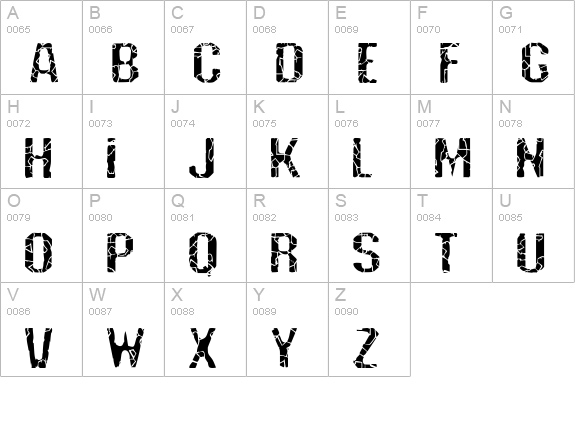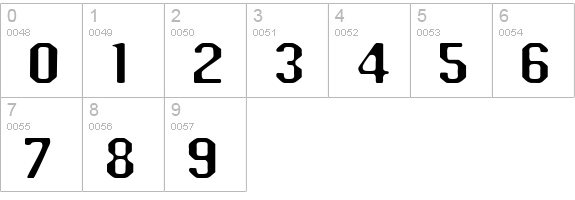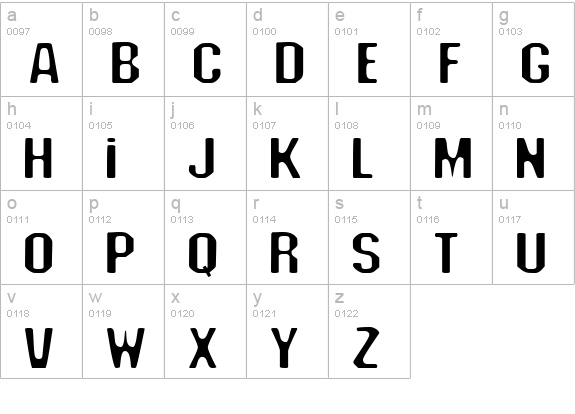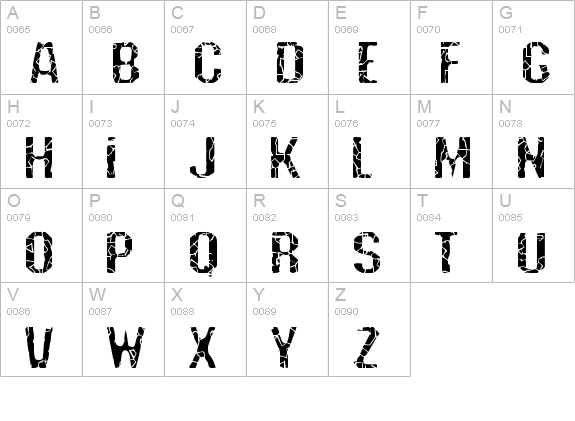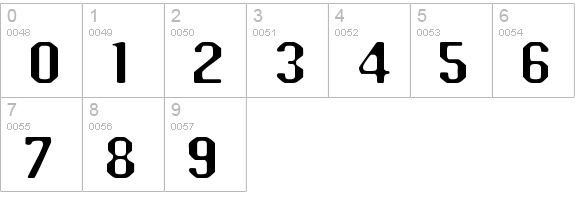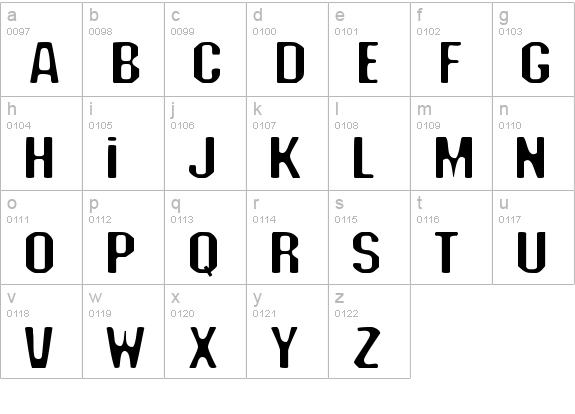
DEADLINE Font Details
DEADLINE font is a modern and stylish typeface that exudes a sense of urgency and importance. With its bold and impactful letterforms, this font is perfect for grabbing attention and making a statement in your designs. What sets DEADLINE font apart is not just its striking appearance, but also the fact that it is available for free download. You can easily access this eye-catching font at FontsMarket.com, where you can add it to your collection without any cost. Whether you're designing posters, flyers, logos, or any other creative project that needs a touch of edginess, DEADLINE font is sure to make a bold impression. Download it today and unleash its power in your designs!